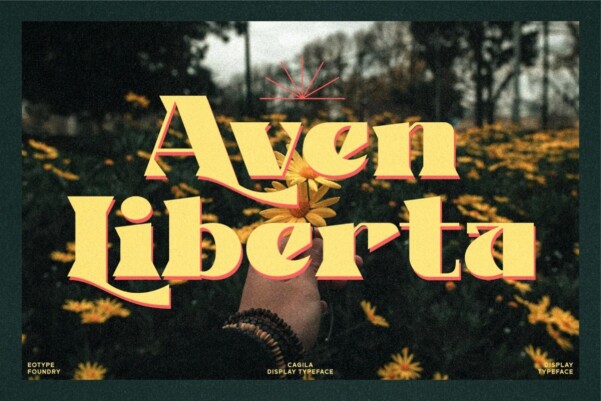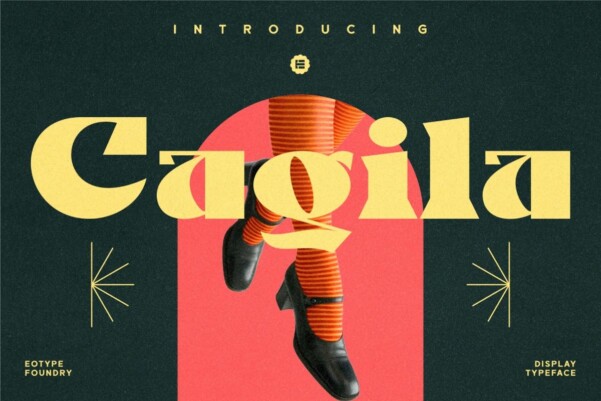
Cagila Font
Cagila Font is a versatile, Vintage and elegant serif font. Designed by Eotype Foundry, It has a unique style with stylistic, alternates, ligatures and supports multilingual languages. Create unique & beautiful logotype, use it as an elegant solution for your next magazine layout, or choose Cester for any graphics that require a bold look with a elegant flair.